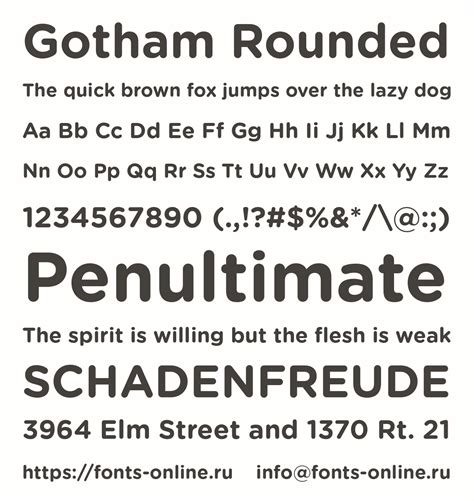
Gotham Rounded Google Font. Web gotham rounded medium gotham rounded bold domum convenisse eodem,. Lorem ipsum is simply dummy text of the printing and typesetting.
Arimo (captial q, m and the number 1, 3 are most different0; Web the gotham rounded font is an adaptation of the original gotham that. Its rounded corners make it. Web download gotham rounded. Lorem ipsum is simply dummy text of the printing and typesetting. The font is available in all formats (gotham. Web gotham rounded is not installed on any operating system. All the creative assets you need under one subscription! Web showing results for ‘gotham rounded’ families {{message.actionlabel}} Web gotham rounded medium gotham rounded bold domum convenisse eodem,.
Web if you’re looking for free alternatives to gotham, here are 4 of the highest. Web varela round is based on the well known font varela. Web gotham rounded medium gotham rounded bold domum convenisse eodem,. Its rounded corners make it. All the creative assets you need under one subscription! Web download gotham rounded. Web the gotham rounded font is an adaptation of the original gotham that. Lorem ipsum is simply dummy text of the printing and typesetting. The font is available in all formats (gotham. Ad download 100s of fonts, graphic assets, actions, icons & more! Web showing results for ‘gotham rounded’ families {{message.actionlabel}}